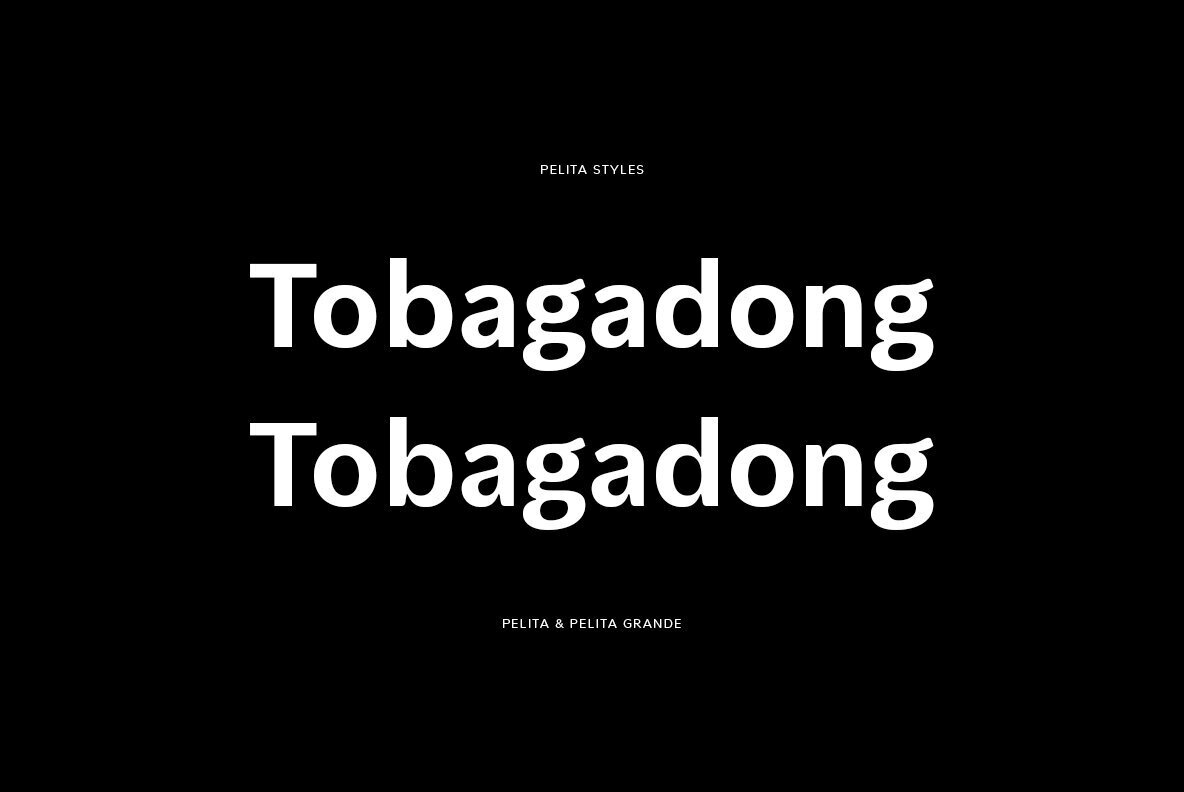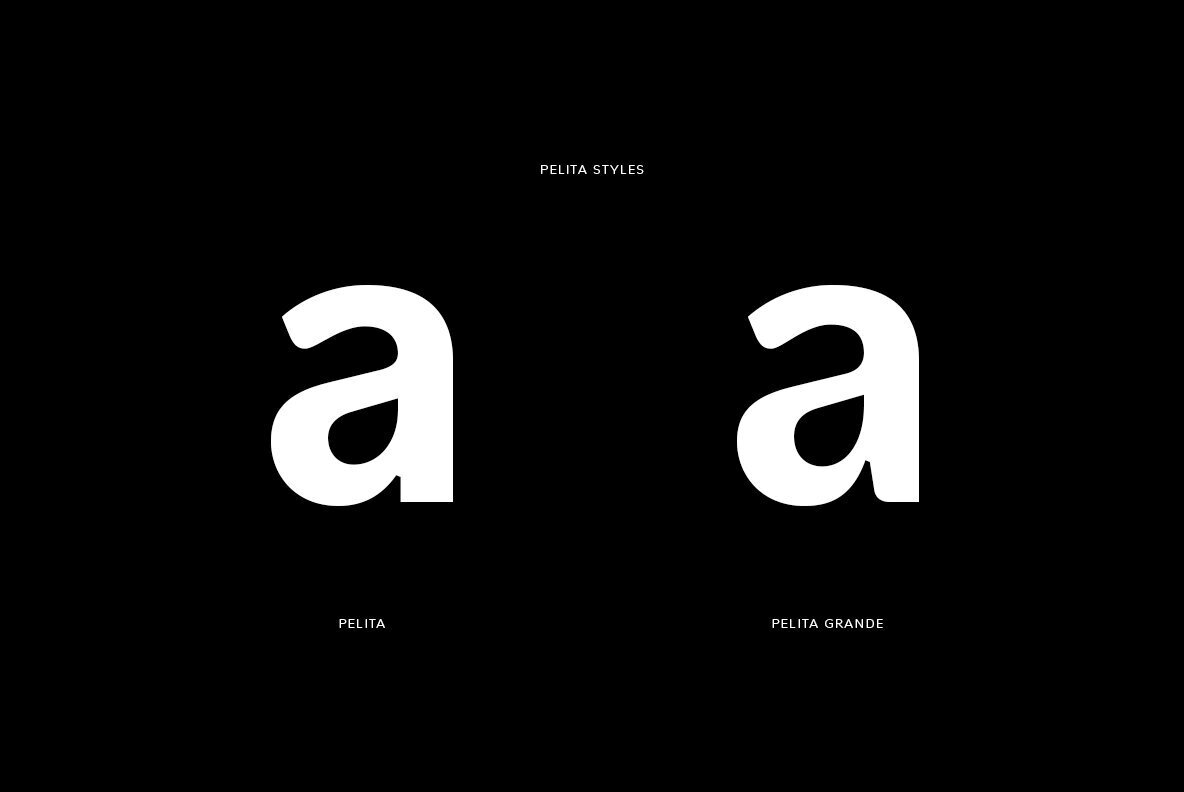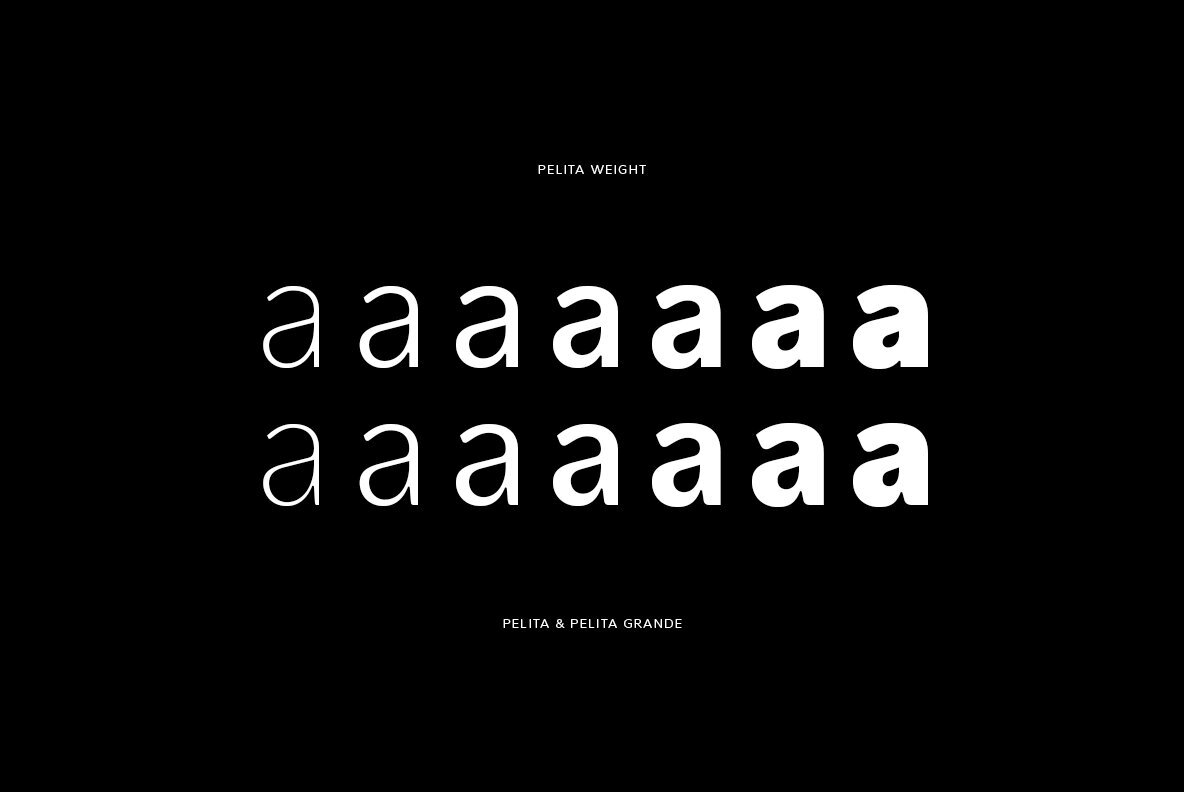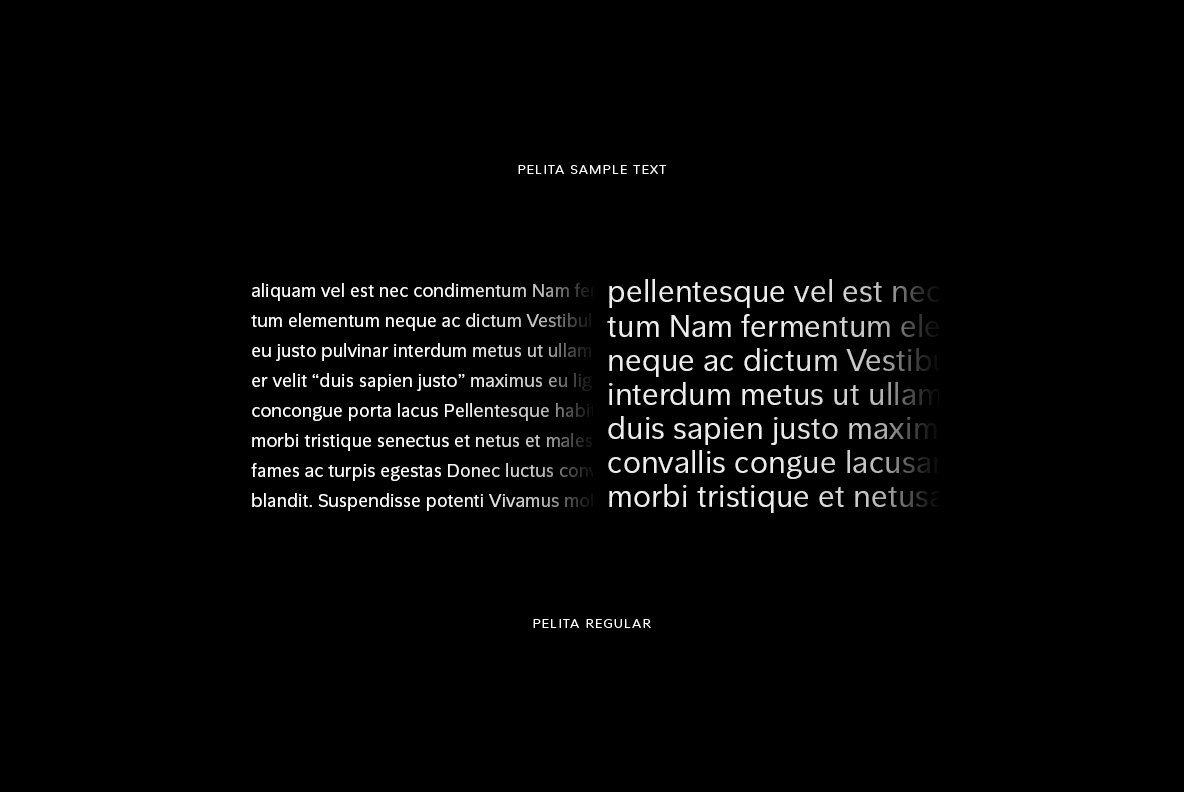
Experience the Uniqueness of Pelita: A Lafontype Masterpiece for Graphic Designers and Marketing Firms
Unveiling Pelita, an exquisite sans-serif family by renowned designer Lafontype, curated expressly for graphic designers and marketing firms. Delicately bifurcated into two distinguished sub-families, Regular and Grande, this font gratifies an array of aesthetic requirements.
Notable for its unique terminals forming curved angles on one side, Pelita gently marries firmness and softness, granting a distinct feel to your designs. Grande, the gloriously modified version, further encapsulates this charisma.
• Typography Family: Sans-Serif
• Sub-Families: Regular and Grande
• Unique Feature: Curved angle terminals
• Designer: Lafontype